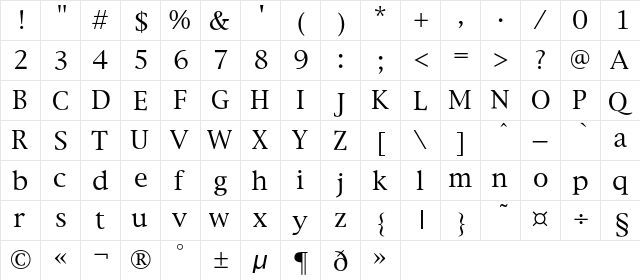
NewYorkC Regular
Design Context for NewYorkC Typeface
NewYorkC offers clean, dependable letterforms without strong stylistic allegiance, making it a practical choice for designers who need flexibility.
Pro Tip: Use NewYorkC in both headline and body roles to test its range before committing to a single application.